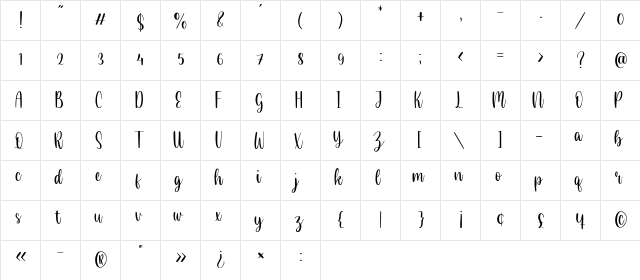
Almond Delight Regular
| Designer | Balpirick Studio |
Design Context for Almond Delight Typeface
Almond Delight is a composed and adaptable typeface that performs quietly and consistently across a wide range of design contexts. The delicate stroke weight brings airiness and refinement to layouts.